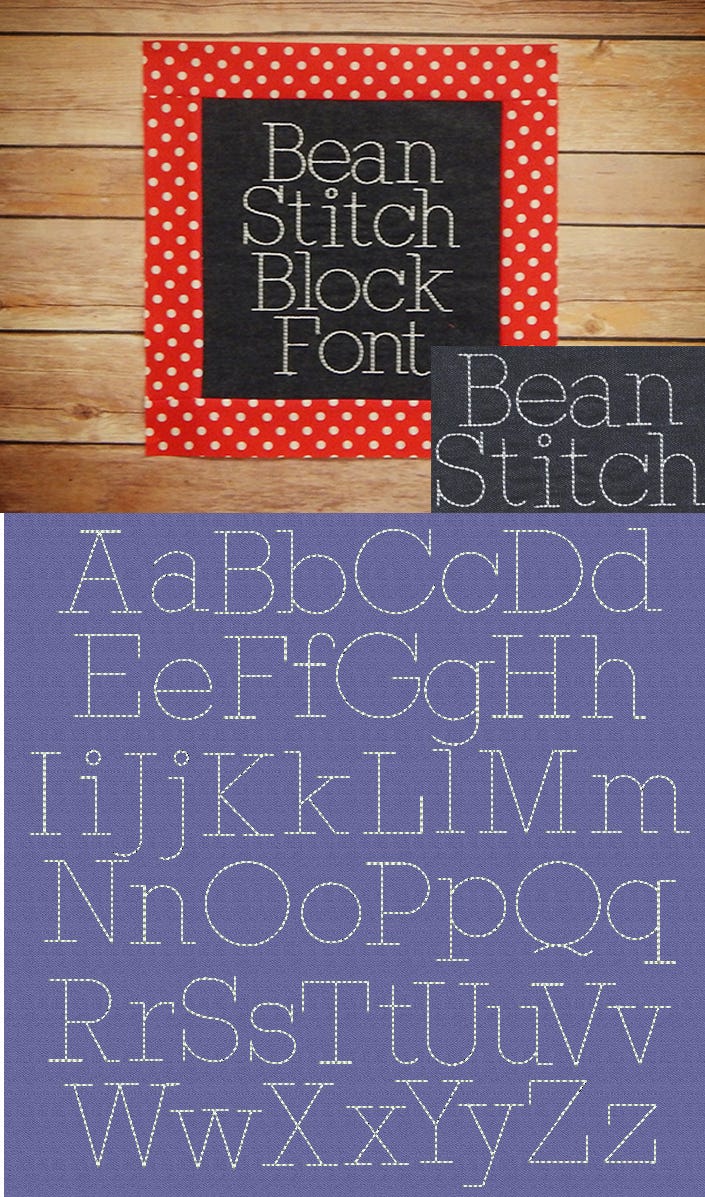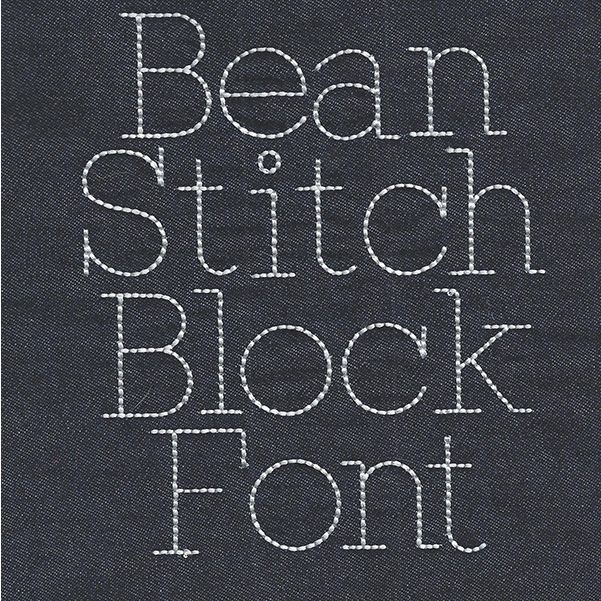
You will LOVE this simple and effective block font in a nice thick bean stitch. (This eleven-pass backstitch font is designed to stitch on fabric, not cardstock.)Ā This font does not include numbers and characters. All of our fonts are 100% manually digitized to ensure the highest quality.